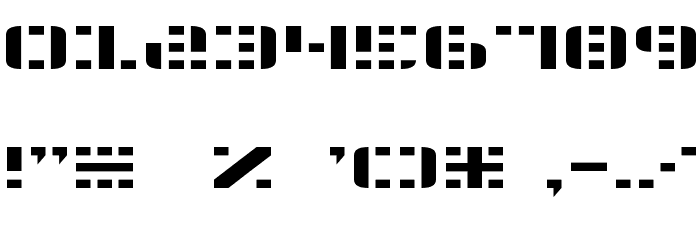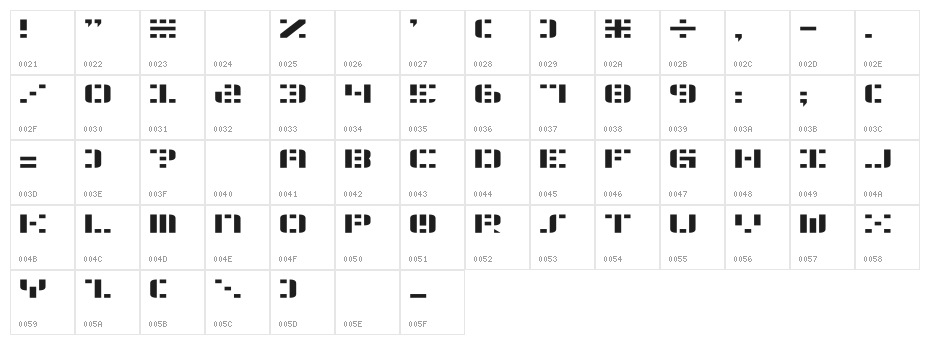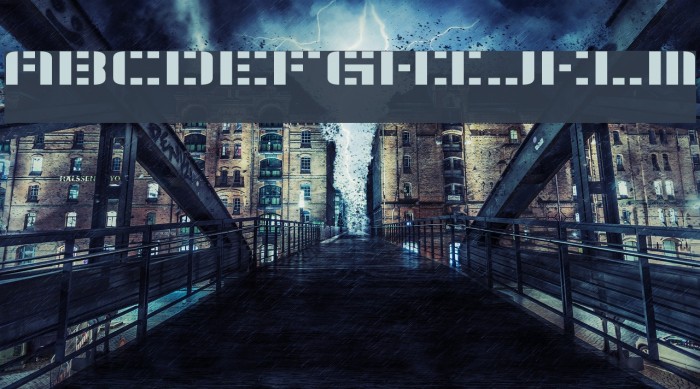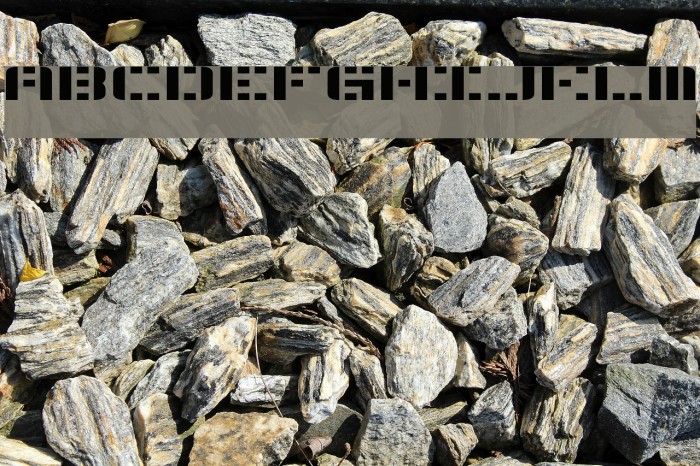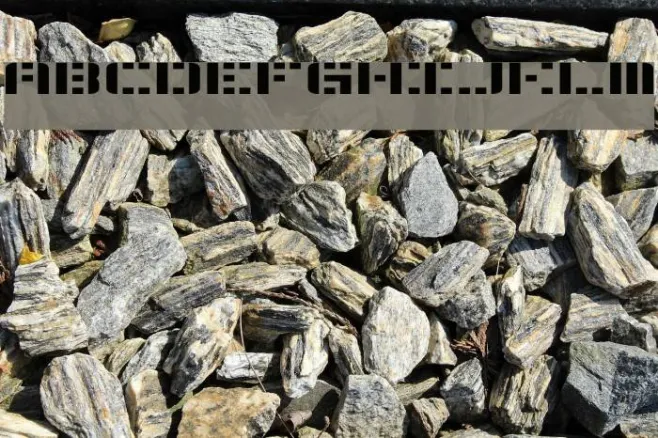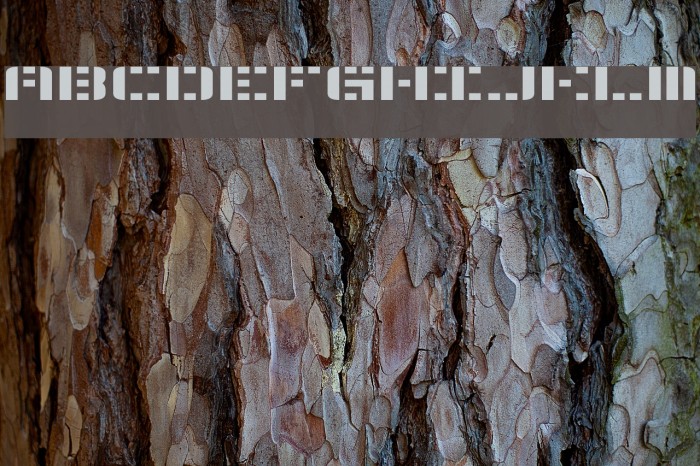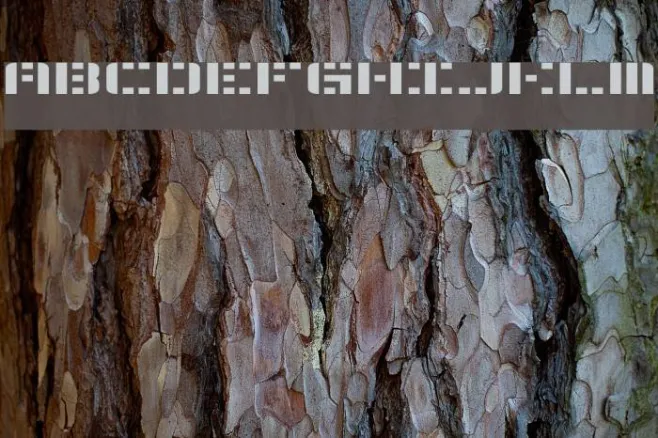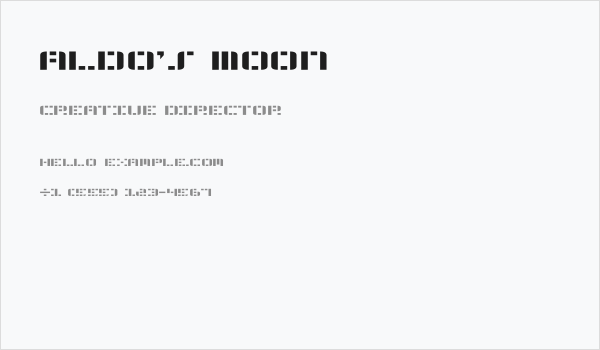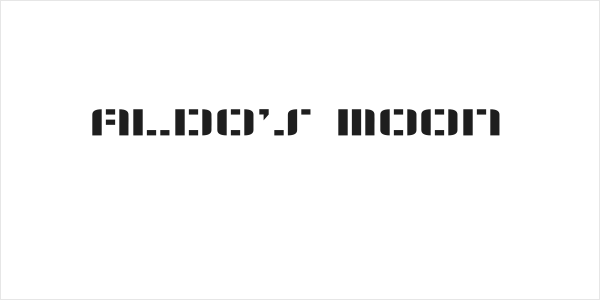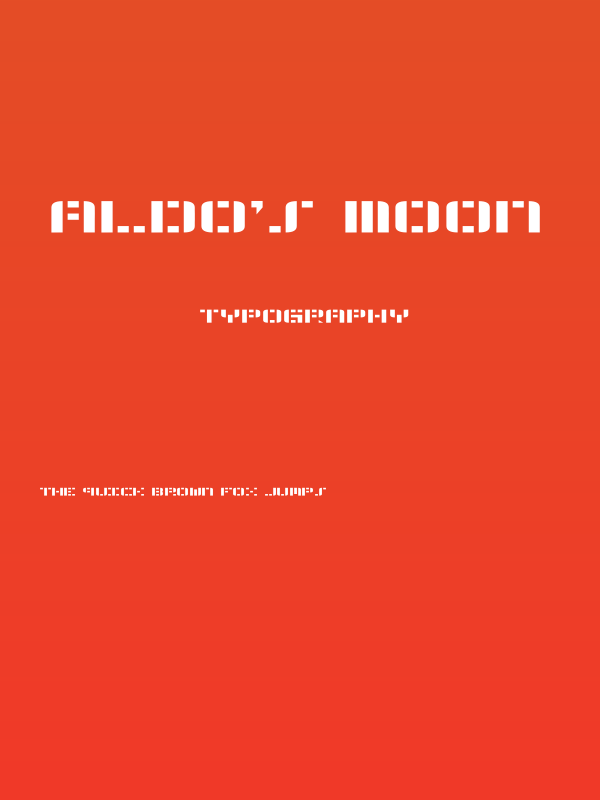
Aldo's Moon Font
Aldo's Moon Description
This font features a bold, geometric design with a distinct stencil-like appearance. Each character is constructed using solid blocks interspersed with evenly spaced gaps, creating a modern and industrial feel. The uppercase and lowercase letters maintain a consistent style, emphasizing uniformity and precision. Numbers and special characters follow the same pattern, ensuring a cohesive look across all elements. The font's unique structure makes it stand out, offering a futuristic and technical aesthetic suitable for various creative applications.